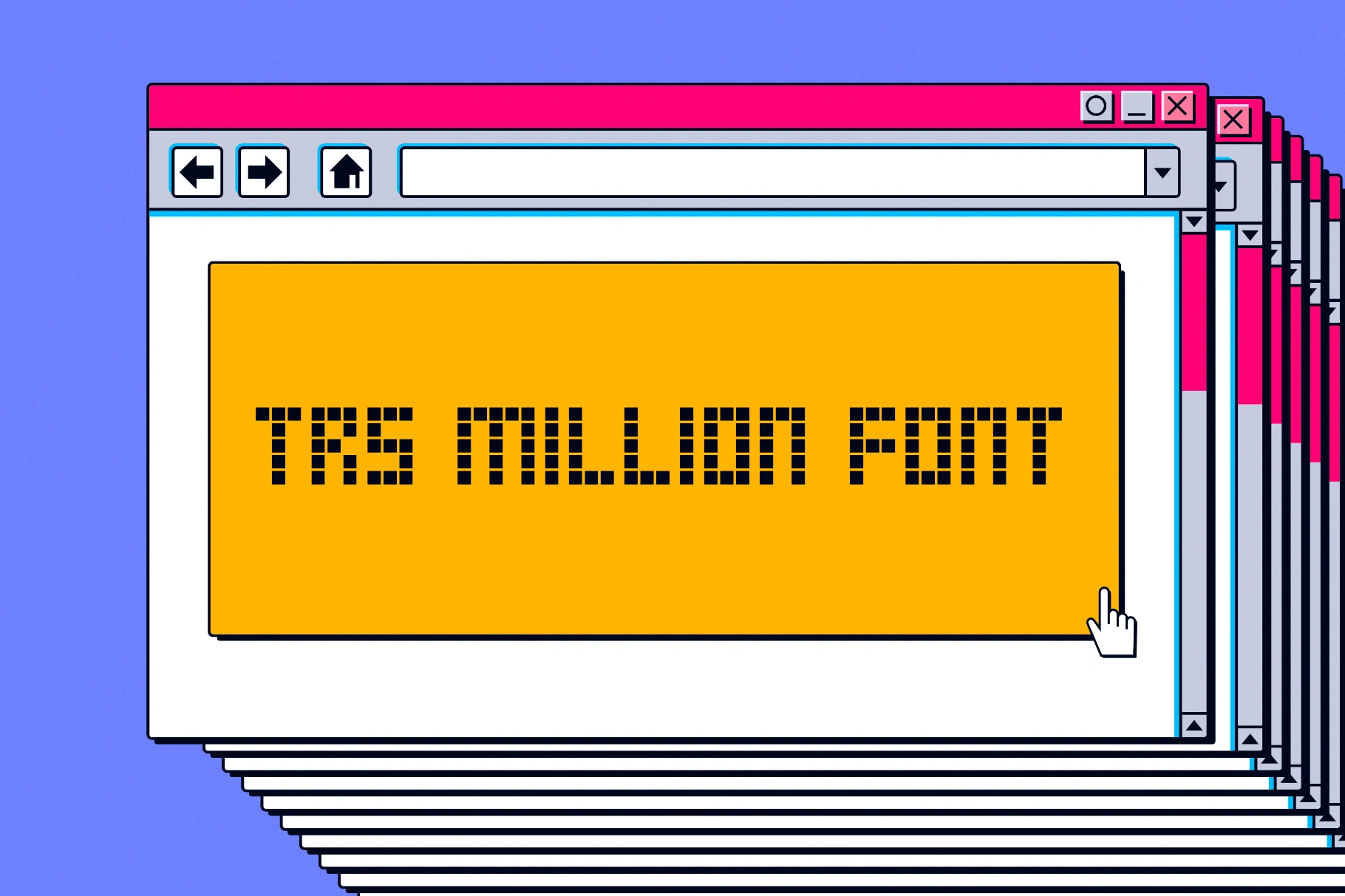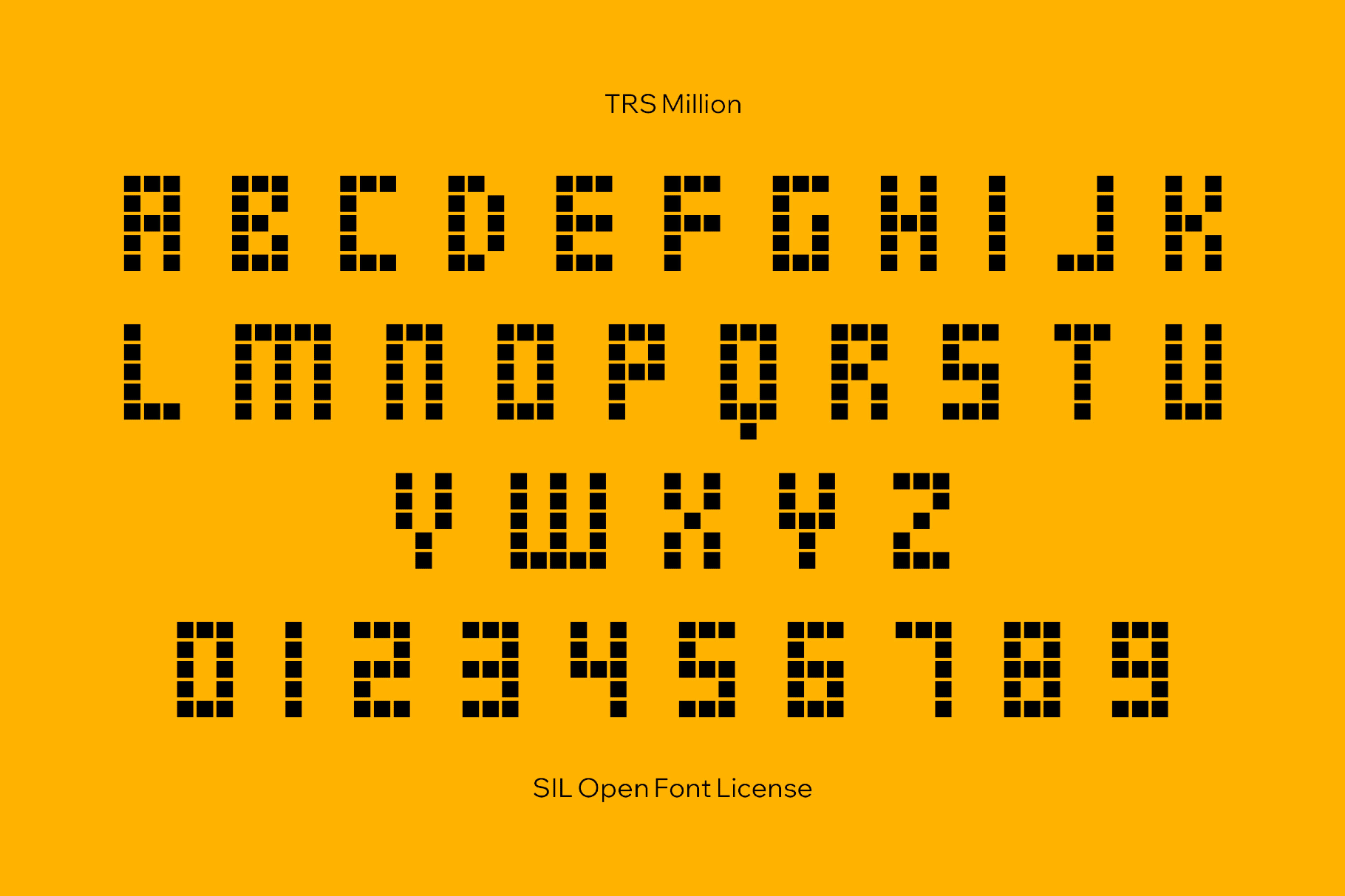
TRS Million Font
TRS Million is a loud dot-matrix display font with chunky curves that recalls Y2K promo graphics and the early console splash screens. It’s an excellent fit for poster headlines, game and streamer branding, sticker-style logos, sci-fi HUDs, retro computer interfaces, album art, product packaging, merch graphics, and social titles.
• Only uppercase letters, numbers, punctuation, symbols, and extra symbols.
• International characters with multilingual support across extended Latin scripts.
• Extended support for mathematical symbols and metrics.